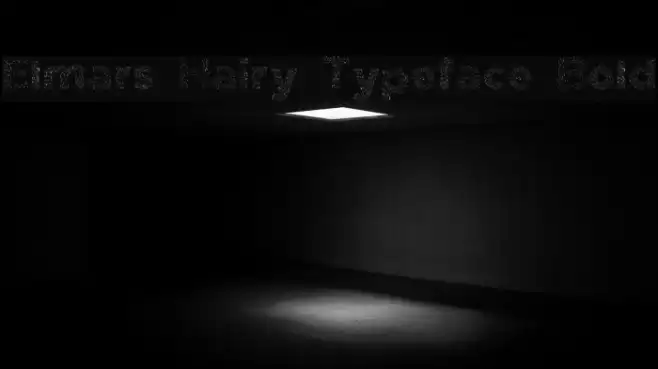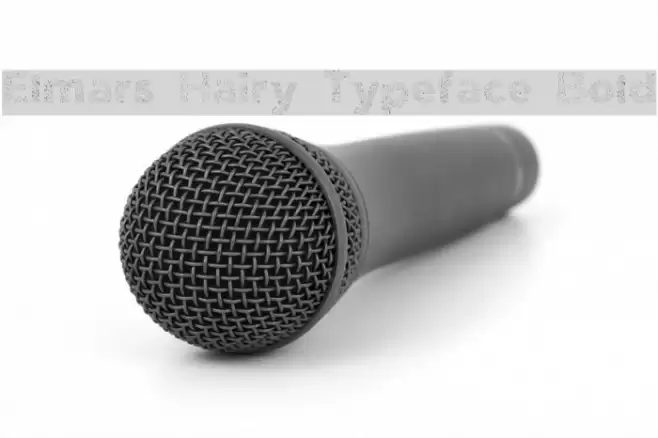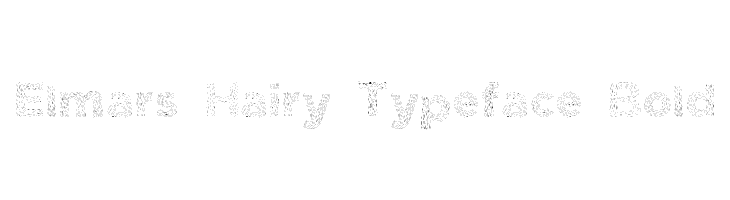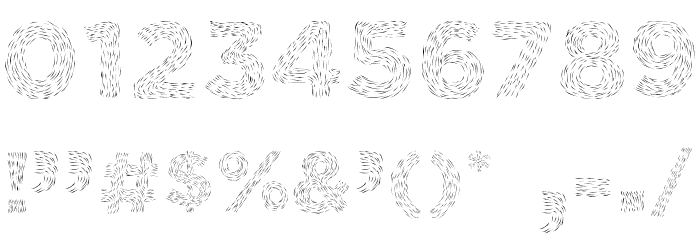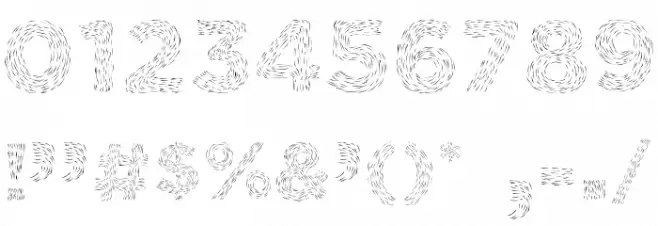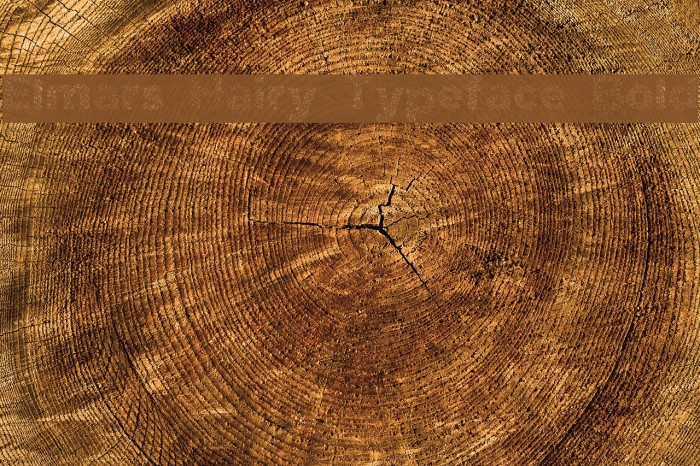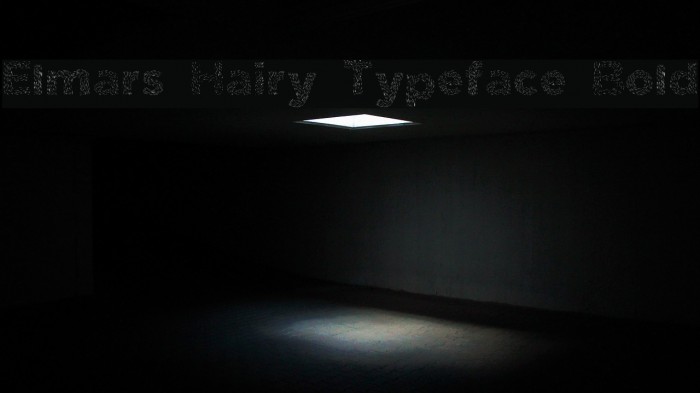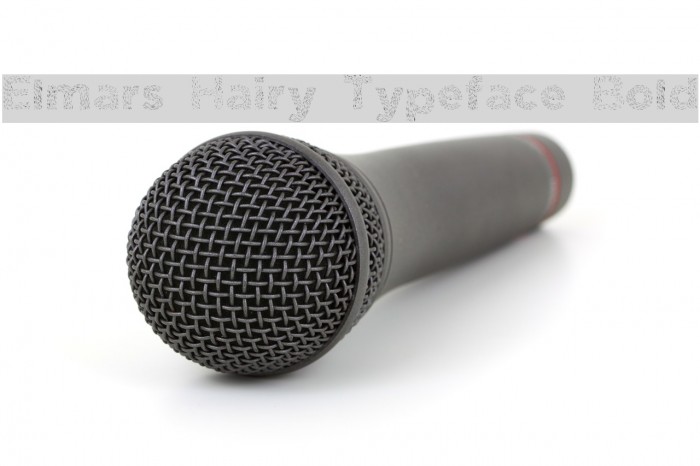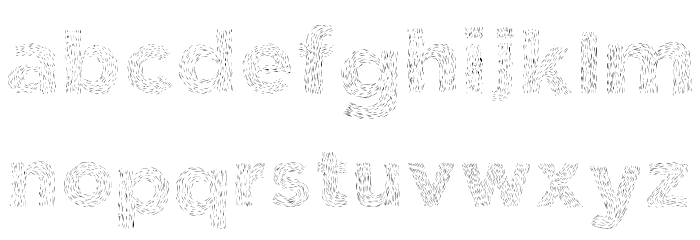
Elmars Hairy Typeface Bold Font
Elmars Hairy Typeface Bold Description
This typeface features a unique and playful design, characterized by its textured, hairy appearance. Each letter is composed of numerous small strokes that create a fuzzy, dynamic look, making it stand out as a decorative option. The uppercase and lowercase letters maintain consistent styling, with numbers and special characters following the same aesthetic. This font is bold and eye-catching, suitable for projects that require a distinctive and whimsical touch. Its intricate design suggests a sense of movement and creativity, making it ideal for artistic and unconventional applications.
A bold, textured typeface with a playful, hairy design from Decorative fonts.
- Proposed Projects: Ideal for creative projects such as posters, album covers, children's books, and branding that seeks a fun and unique identity.